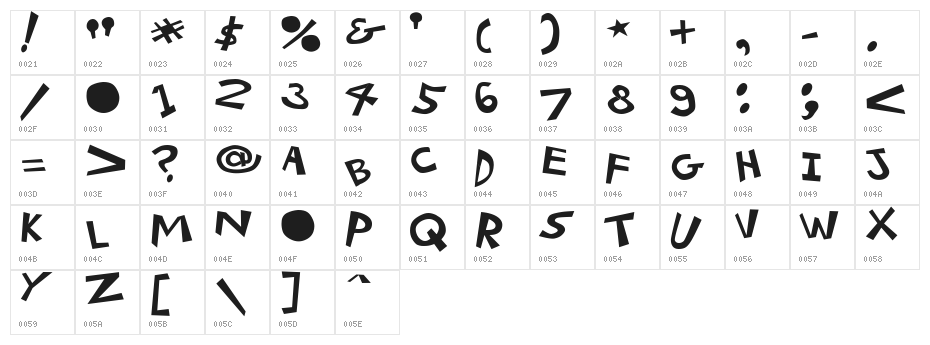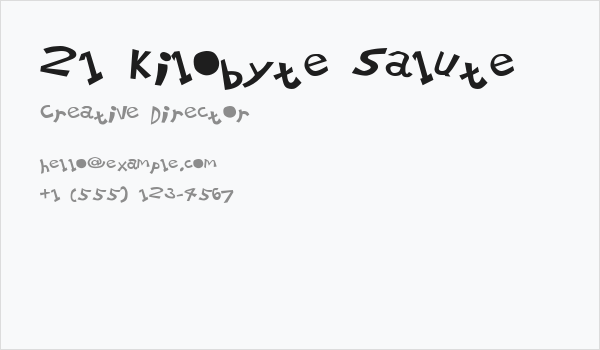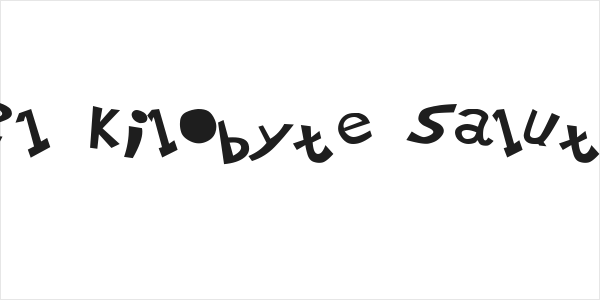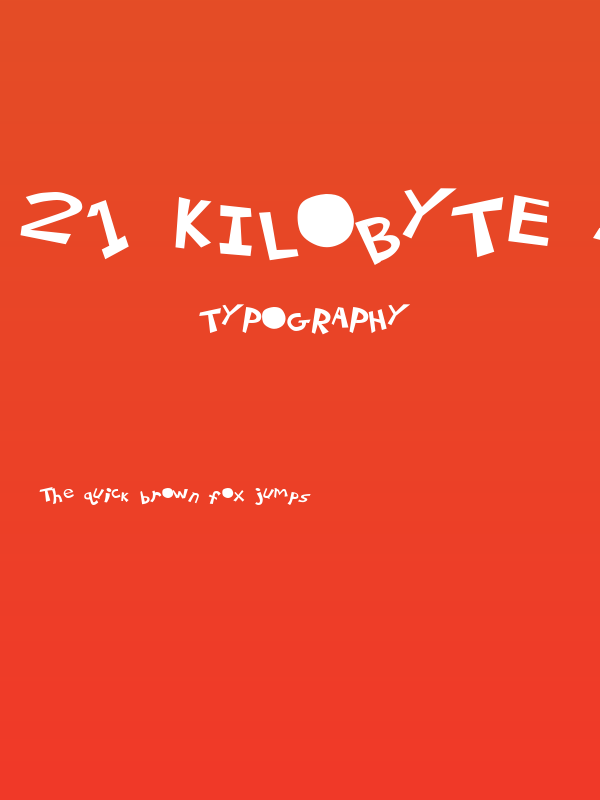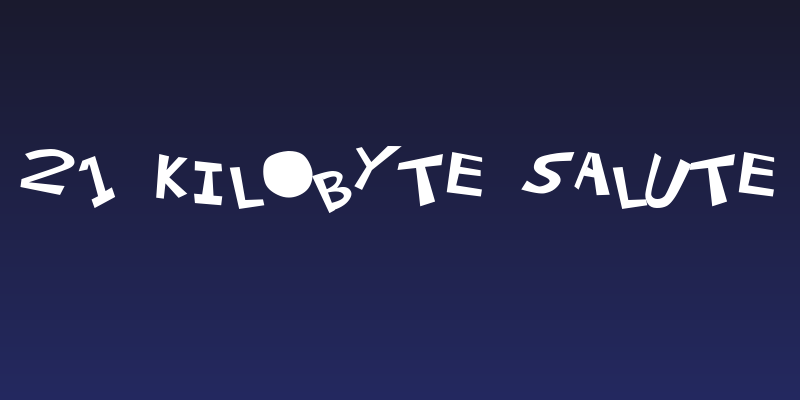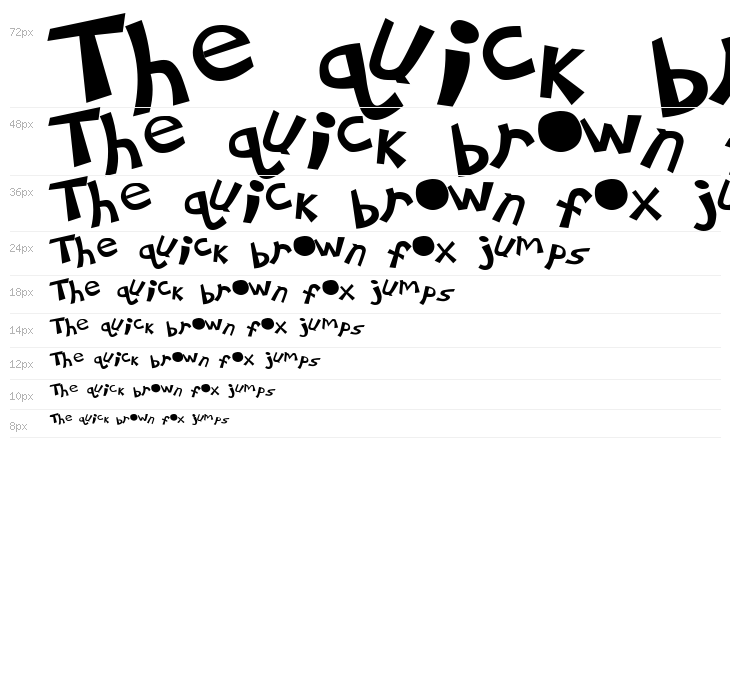
21 Kilobyte Salute Font
21 Kilobyte Salute Description
This font features a playful and quirky design with irregular shapes and varying angles, giving it a dynamic and energetic appearance. The characters are bold and slightly exaggerated, with a hand-drawn feel that adds a touch of whimsy. The uppercase and lowercase letters maintain a consistent style, while the numbers and special characters complement the overall look. This font is perfect for projects that require a fun and informal touch, such as children's books, playful branding, or creative posters.
Overall StylePlayful, Whimsical
Proposed ProjectsIdeal for children's books, playful branding, creative posters, and informal invitations.